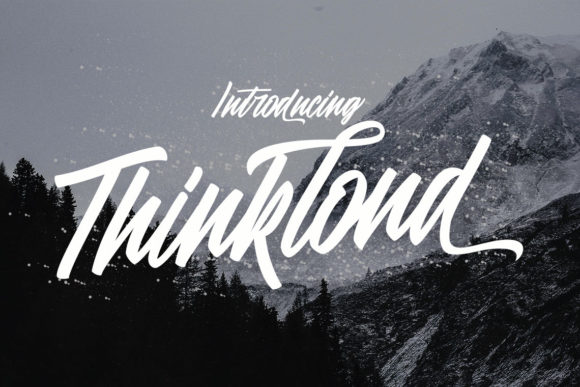
Prepare to immerse yourself in the exquisite charm of Thinkloud Script, a captivating creation from Analogous. This enchanting font family embodies the essence of elegance and authenticity, meticulously crafted to leave an indelible mark on your digital designs.
With its graceful curves and flowing lines, Thinkloud Script possesses an undeniable allure, whispering tales of timeless sophistication and effortless creativity. Crafted with meticulous attention to detail, each letterform exudes a unique personality, seamlessly blending classic elegance with a modern, artistic flair.
Whether you're crafting heartfelt invitations, designing enchanting branding materials, or creating captivating social media posts, Thinkloud Script is your perfect companion. Its versatile nature effortlessly adapts to a wide spectrum of projects, breathing life into your words and captivating the attention of your audience.
Welcome to a world where imagination takes flight, where words dance with grace, and designs dazzle with authenticity. Thinkloud Script is more than just a font; it's an experience, inviting you to unleash your creativity and leave a lasting impression with every project you undertake.
Discover the beauty of Thinkloud Script today and embark on a journey of creative expression that knows no bounds. Let your words flow effortlessly, guided by the enchanting strokes of this remarkable font, and watch as your designs transform into captivating masterpieces.